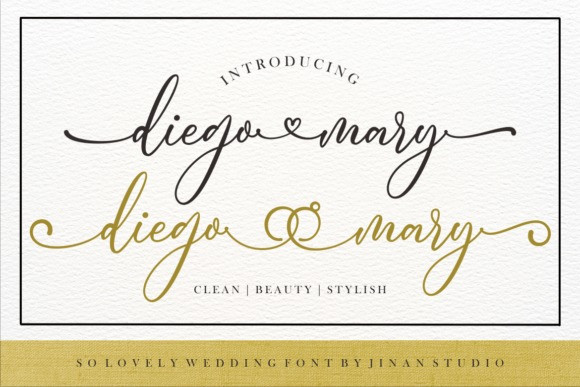
Diego Mary Font
Diego Mary Font is a stylish, beauty and modern handwritten font, suitable for a wide spectrum of applications. From greeting cards, wedding cards to headlines, this font will guarantee a romantic touch to each of your creations! Diego Mary font is PUA encoded which means you can access all of the glyphs and swashes with ease.